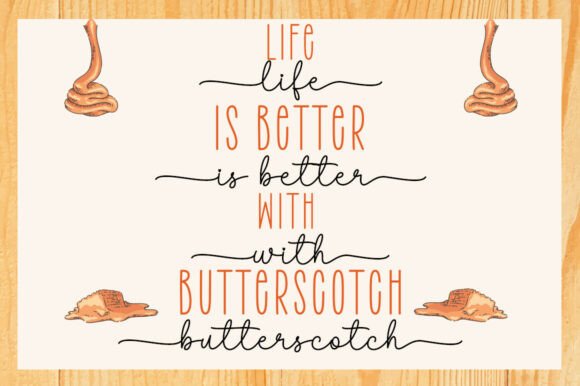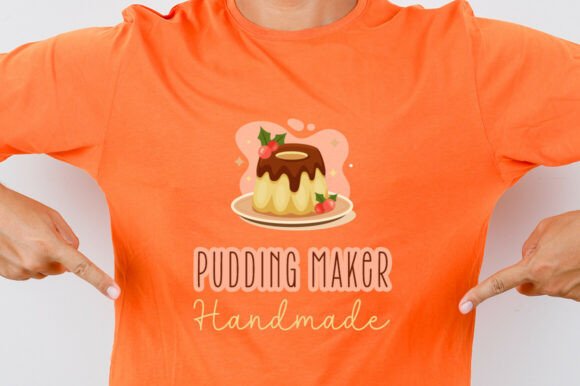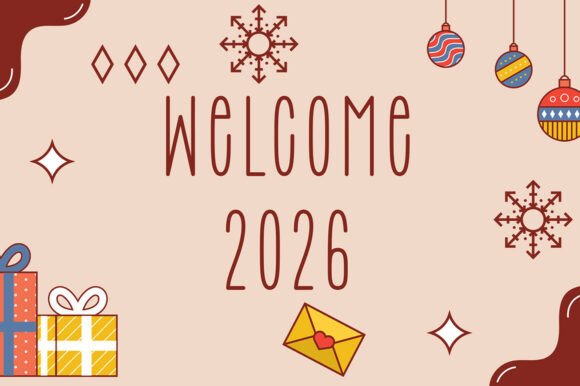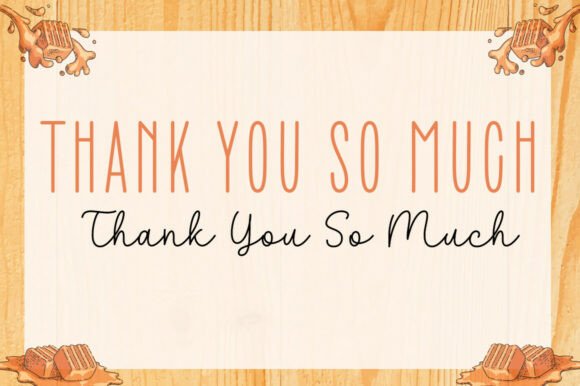
Where Words Come Alive: Introducing the Butterscotch Handmade Duo Font
Have you ever received a handwritten note or a greeting card that made your heart skip a beat? The way the words seemed to dance across the page, filled with love and personality, left a lasting impression. That’s the magic of the Butterscotch Handmade Duo Font, a beautifully crafted duo font that brings a touch of sophistication and charm to your designs.
This exquisite font seamlessly blends sans serif and script elements, making it perfect for a wide range of applications, from romantic greeting cards to captivating headlines. With its PUA encoding, designers can easily access the complete array of glyphs and ligatures, ensuring seamless integration into any design art board. The Butterscotch Handmade Duo Font is a valuable addition to any designer’s toolkit, offering a unique and elegant way to elevate their designs.
Butterscotch Handmade Duo Font Key Features
- Font Family: Butterscotch Handmade Duo, a unique and elegant script font.
- Unique Characteristics: Handmade, cursive, and elegant script font, perfect for creating beautiful and unique designs.
Designer Review: Butterscotch Handmade Duo Font
Overall, I have mixed feelings about the Butterscotch Handmade Duo Font. It’s a unique and beautiful font that has its strengths and weaknesses.
- ✨ The font’s aesthetic is lovely, with a mix of modern and vintage elements that work well together.
- ✨ The font is highly customizable, with a wide range of font sizes, colors, and effects available.
- ✨ The font is also highly legible, even at smaller font sizes.
- ⚠️ The font can be a bit too ornate for some designs, and may not be suitable for all types of content.
- ⚠️ The font’s unique aesthetic can be a bit overwhelming, and may not be suitable for designs that require a more subtle approach.
- ⚠️ The font may not be compatible with all operating systems or devices, which could cause display issues.
While the Butterscotch Handmade Duo Font is a beautiful and unique font, it may not be the best choice for all designers. Its ornate aesthetic and high level of customization make it a great choice for designers who want to create eye-catching and visually interesting designs, but it may not be suitable for designers who prefer a more subtle approach.
Tips for Getting the Most Out of Butterscotch Handmade Duo Font
1. Use the font for titles and headings to add a touch of elegance.
2. Pair the font with other script fonts for a unique look.
3. Experiment with different font sizes and colors to create a visually appealing design.
2. Baby shower invitations and decorations.
3. Quirky and playful branding for businesses.
Alternatives to Butterscotch Handmade Duo Font
Oswald
Oswald is a sans-serif font designed by Vernon Adams. It’s suitable for titles, headings, and body text, making it a versatile choice for various designs. Oswald has a strong, clean look that can work well in modern and minimalist designs. Compared to Butterscotch Handmade Duo Font, Oswald has a more modern feel and lacks the distressed, vintage look of the duo font.
Playfair Display is an elegant, high-end font designed by Claus Eggers Sørensen. It’s ideal for luxury brands, high-end products, or any design that requires sophistication. Playfair Display features intricate details and ornate flourishes, giving it a luxurious feel. Compared to Butterscotch Handmade Duo Font, Playfair Display is more ornate and less distressed, making it a better choice for high-end designs.